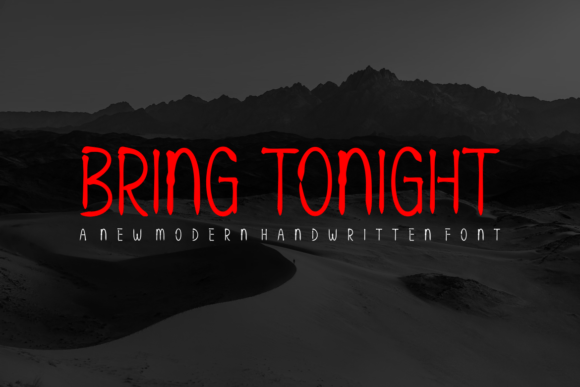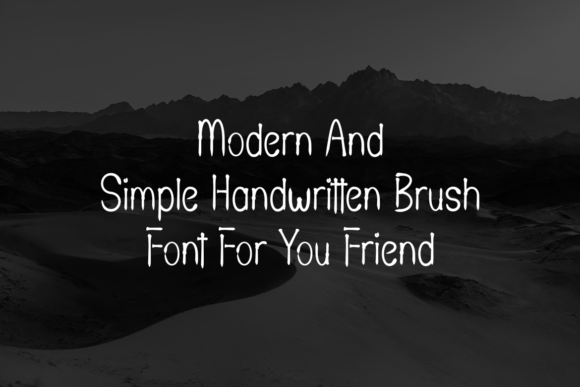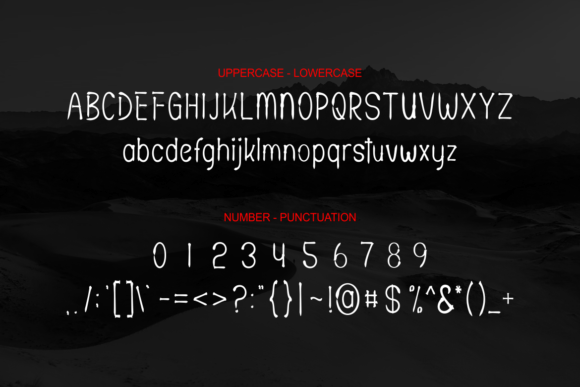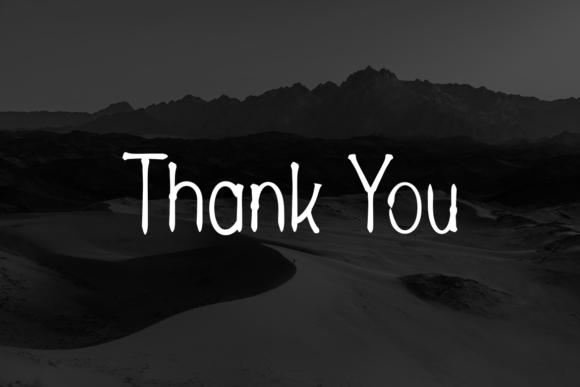
Bring Tonight Font: Elevate Your Designs with a Modern and Bold Display Font
In the world of typography, a font can make or break a design. With the right font, your project can stand out from the crowd and leave a lasting impression. This is where Bring Tonight Font comes in – a modern and bold display font designed to take your branding projects to the next level. In this article, we’ll dive into the features and benefits of Bring Tonight Font, and explore how it can elevate your designs.
What is Bring Tonight Font?
Bring Tonight Font is a bold and authentic display font that is perfect for any branding project. Its modern design and sleek lines make it an ideal choice for designers and crafters looking to add a touch of sophistication to their work. The font is versatile and can be used in a wide range of contexts, from logos and t-shirt printing to esport and more.
Key Features of Bring Tonight Font
- Bold and Authentic Design: Bring Tonight Font boasts a bold and authentic design that is sure to grab attention.
- Modern and Sleek Lines: The font’s modern and sleek lines make it perfect for designs that require a touch of sophistication.
- Versatile: Bring Tonight Font is versatile and can be used in a wide range of contexts, from logos and t-shirt printing to esport and more.
- Easily Readable: Despite its bold design, Bring Tonight Font is easily readable, making it perfect for headlines and titles.
Benefits of Using Bring Tonight Font
So, why should you choose Bring Tonight Font for your next design project? Here are just a few benefits of using this amazing font:
- Stand Out from the Crowd: With Bring Tonight Font, you can create designs that stand out from the crowd and leave a lasting impression.
- Professional and Sophisticated Look: The font’s modern and sleek design gives your designs a professional and sophisticated look.
- Easy to Use: Bring Tonight Font is easy to use and can be easily integrated into your design workflow.
Use Cases for Bring Tonight Font
Bring Tonight Font is versatile and can be used in a wide range of contexts. Here are just a few use cases for this amazing font:
- Logo Design: Bring Tonight Font is perfect for logo design, giving your brand a bold and professional look.
- T-Shirt Printing: The font’s bold design makes it perfect for t-shirt printing, adding a touch of sophistication to your designs.
- Esport: Bring Tonight Font is also perfect for esport designs, giving your brand a modern and sleek look.
- Headlines and Titles: The font’s easily readable design makes it perfect for headlines and titles, adding a touch of professionalism to your designs.
In conclusion, Bring Tonight Font is a modern and bold display font that is perfect for any branding project. Its versatile design and sleek lines make it an ideal choice for designers and crafters looking to add a touch of sophistication to their work. With its ease of use, cost-effectiveness, and professional look, Bring Tonight Font is a must-have font for any designer or crafter.